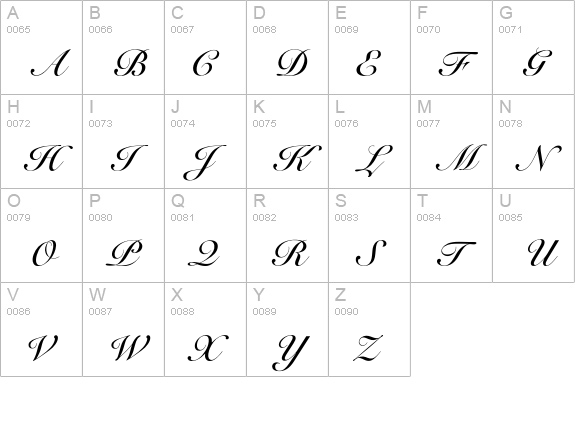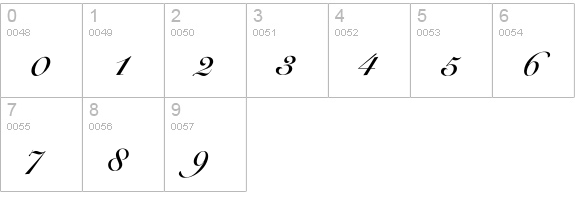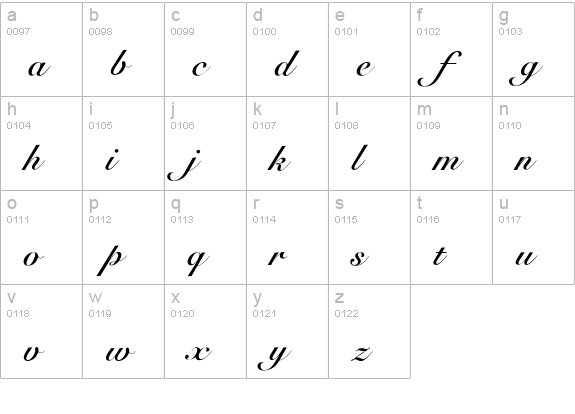
Catania Font Details
Introducing Catania font, a sophisticated and elegant typeface that exudes a sense of timeless beauty. With its delicate curves and refined lines, Catania is perfect for adding a touch of class to any design project. This versatile font is suitable for a wide range of applications, from branding and packaging to invitations and social media graphics. What makes Catania font even more appealing is that it is available for free download at FontsMarket.com. Yes, you read that right - you can access this stunning typeface without any cost. So why wait? Enhance your designs with the grace and charm of Catania font today.